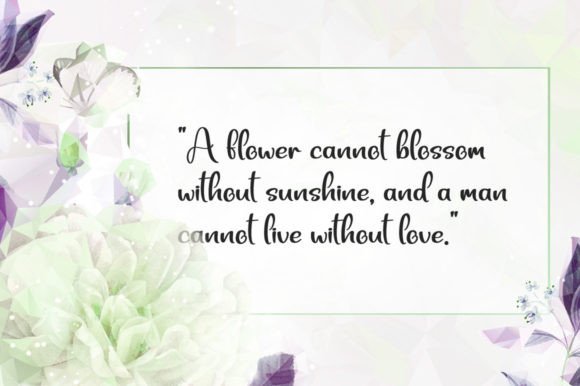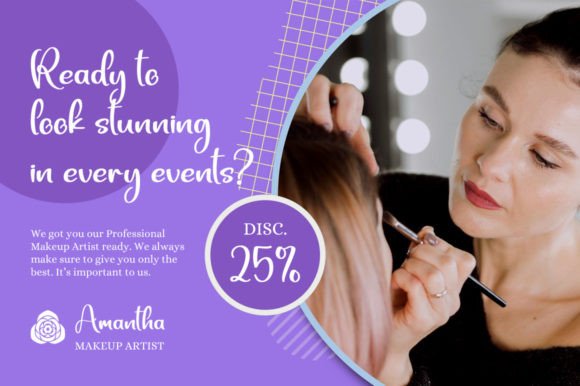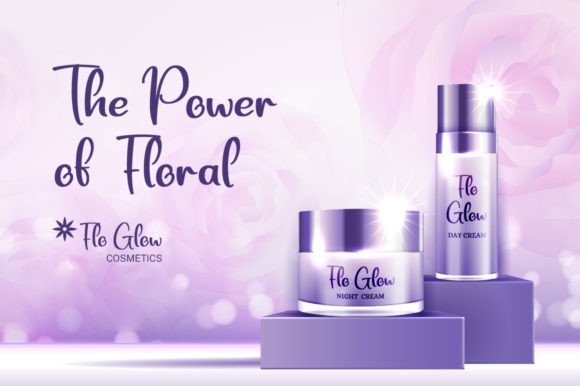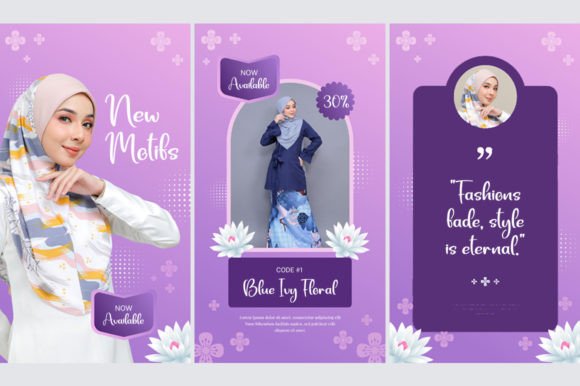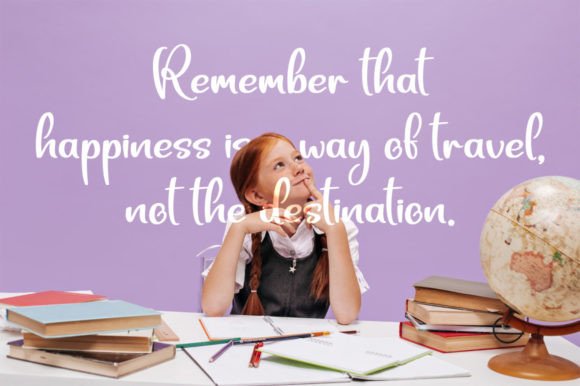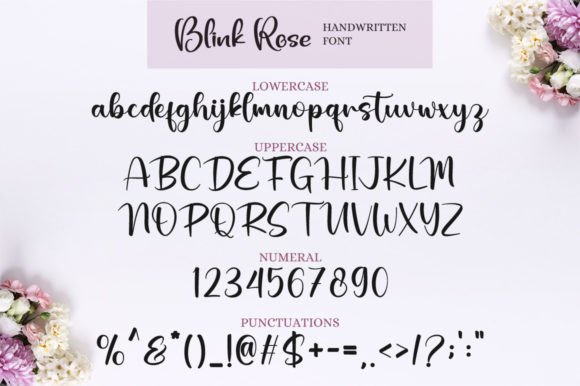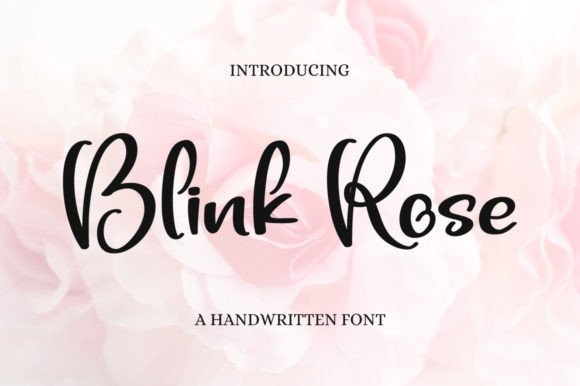
The Blink Rose Font: A Timeless Choice for Creative Projects
An Honest Review of Blink Rose
So, what makes Blink Rose so special? Here are some things I love about this font:
- ✨ Timeless charm: Blink Rose has a classic, handwritten feel that’s hard to find in modern fonts.
- ✅ Ease of use: It’s incredibly versatile and works well for a wide range of design projects, from logos to quotes.
- 💫 Beautifully crafted: The attention to detail in this font is impressive, with subtle variations in line width and letterforms.
Of course, no font is perfect, and Blink Rose has a few quirks:
- 🤔 Limited multilingual support: If you need to create text in languages other than English, you might find Blink Rose a bit limited.
- ⚠️ Not ideal for body text: While Blink Rose is stunning in short texts, it might not be the best choice for longer paragraphs.
The Story Behind Blink Rose
Blink Rose was designed by a talented type designer who wanted to create a font that would evoke a sense of nostalgia and timelessness. Inspired by classic handwritten scripts, Blink Rose was crafted with love and attention to detail, resulting in a font that’s both elegant and approachable.
| Is Blink Rose suitable for body text? | No, Blink Rose is best used for short texts, headings, and titles. Its elegant design might not be ideal for longer paragraphs. |
| Does Blink Rose support OpenType features? | Yes, Blink Rose supports OpenType features like stylistic alternates, glyphs, and ligatures, making it a versatile font for creative projects. |
| Is Blink Rose available in different weights or styles? | Blink Rose is typically available in a single weight, but its elegant design makes it suitable for a range of design applications. |